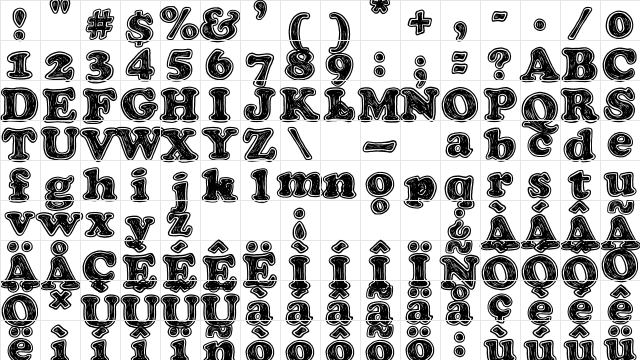
Pop of the Tops Regular
| Designer | IMAGEX |
Design Context for Pop of the Tops Typeface
Pop of the Tops is a composed and adaptable typeface that performs quietly and consistently across a wide range of design contexts.